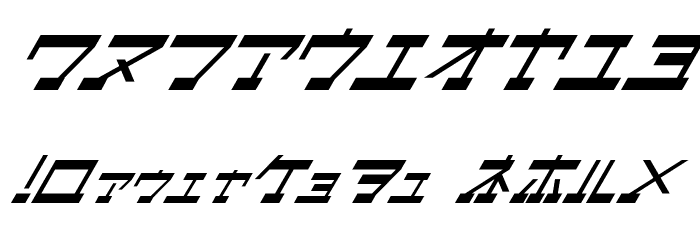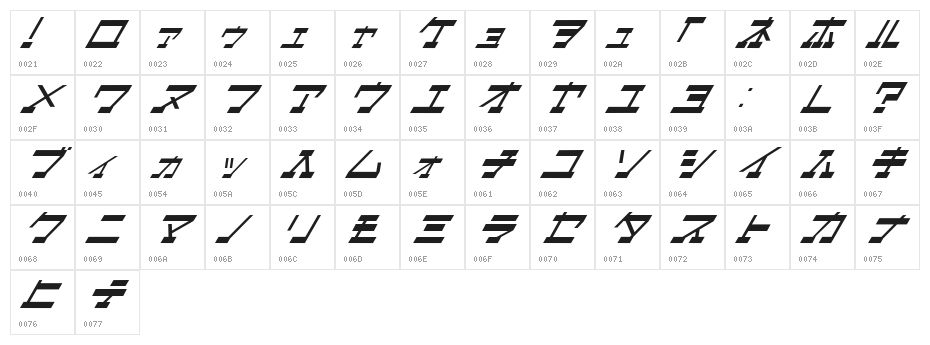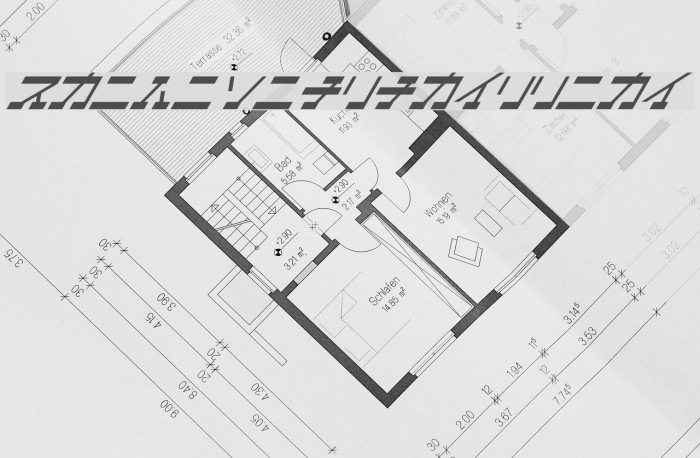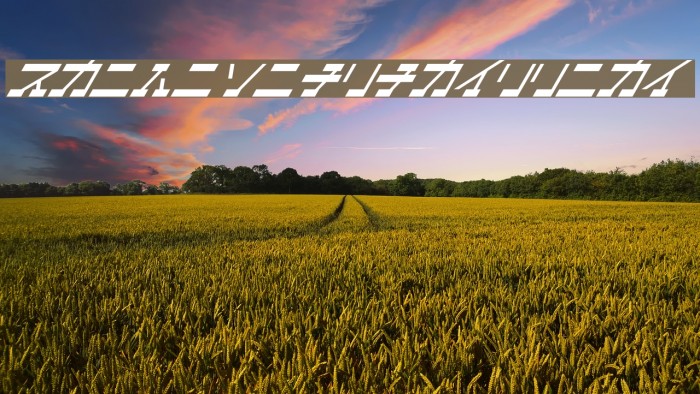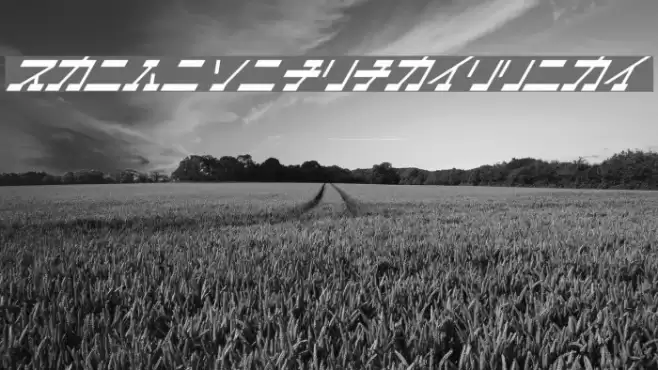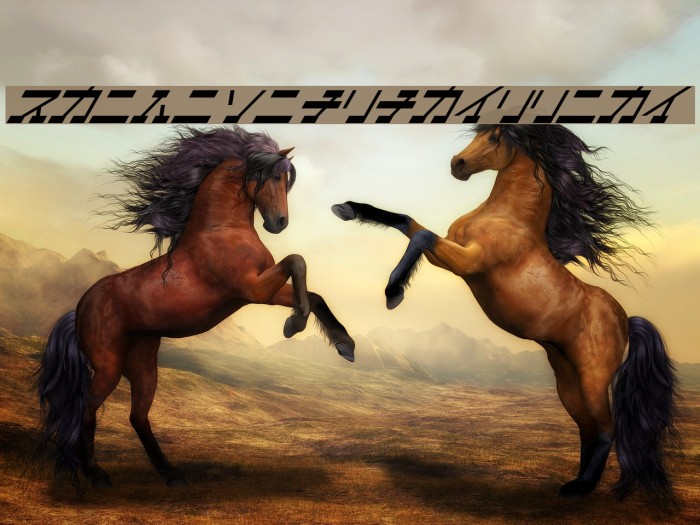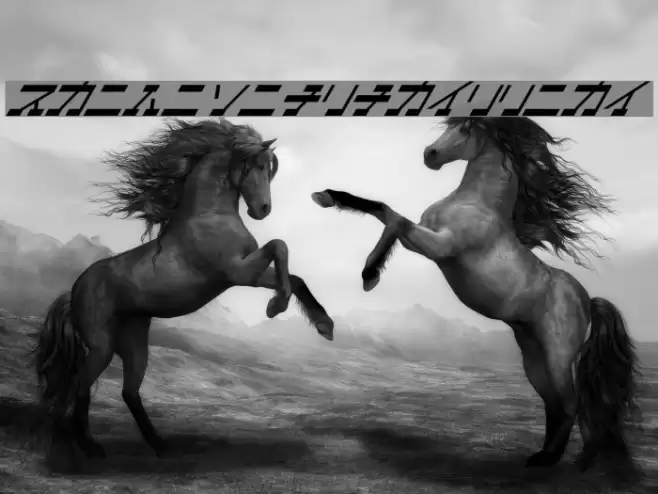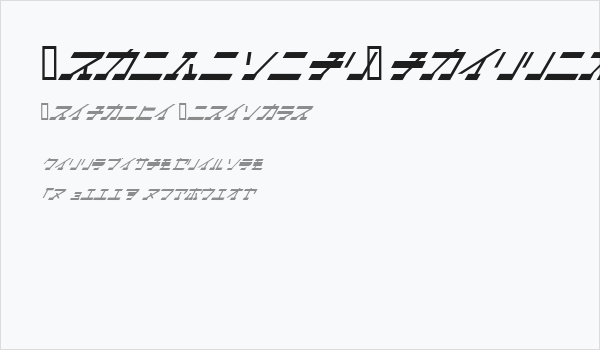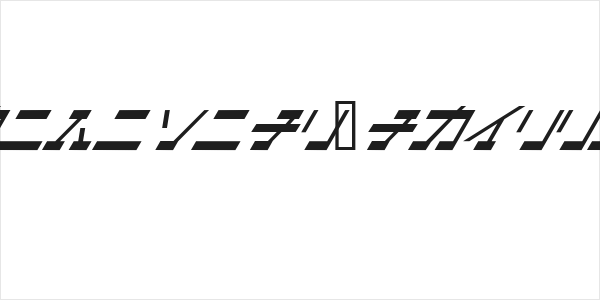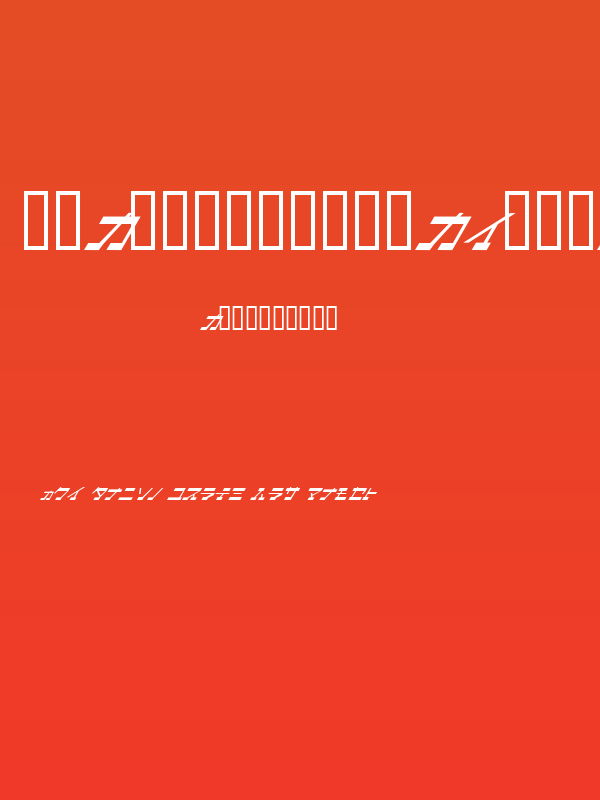
ArtificialSatellite Font
ArtificialSatellite Description
This font features a bold, angular design with a futuristic and dynamic appearance. The characters are sharply defined with a distinct slant, giving them a sense of motion and energy. The strokes are consistent in thickness, contributing to a uniform and cohesive look. The geometric shapes and sharp angles make it stand out, while the slanted orientation adds a unique touch. This font is ideal for projects that require a modern and edgy aesthetic, such as technology-related branding or sci-fi themed designs.
| Proposed Projects | Ideal for technology branding, sci-fi themes, video game titles, and modern advertising. |